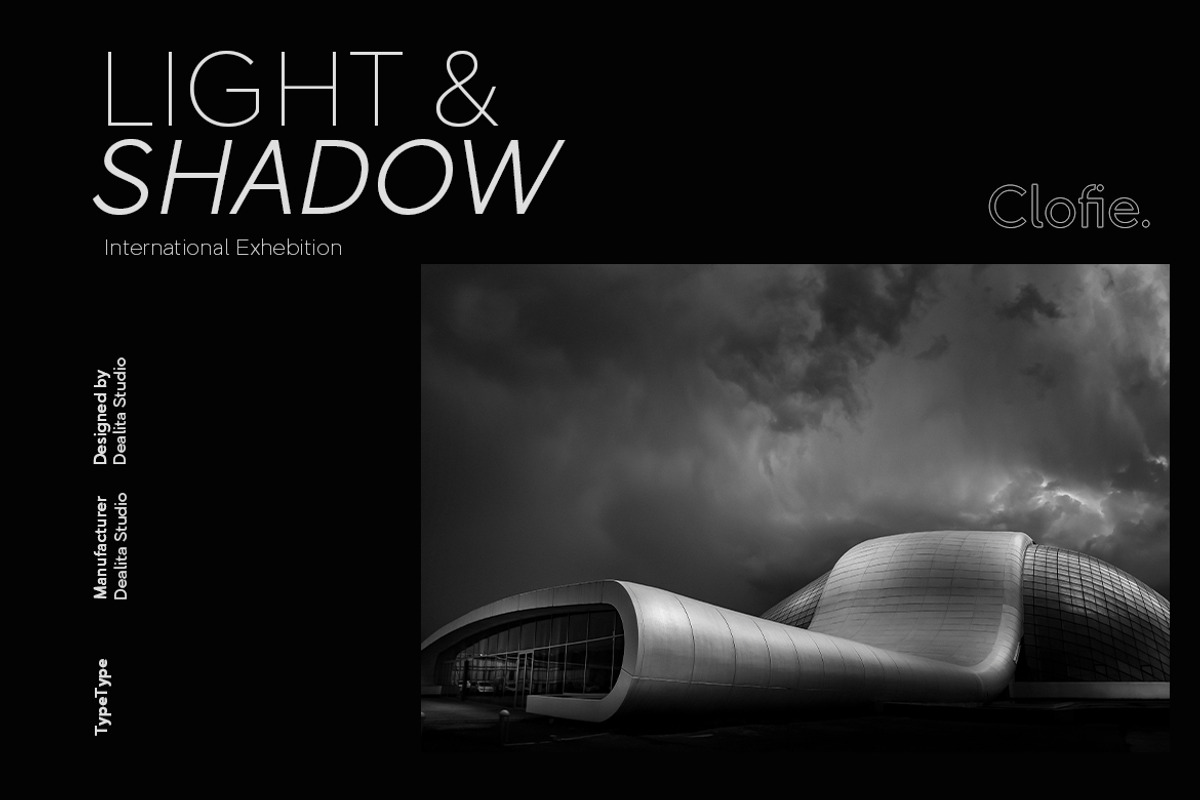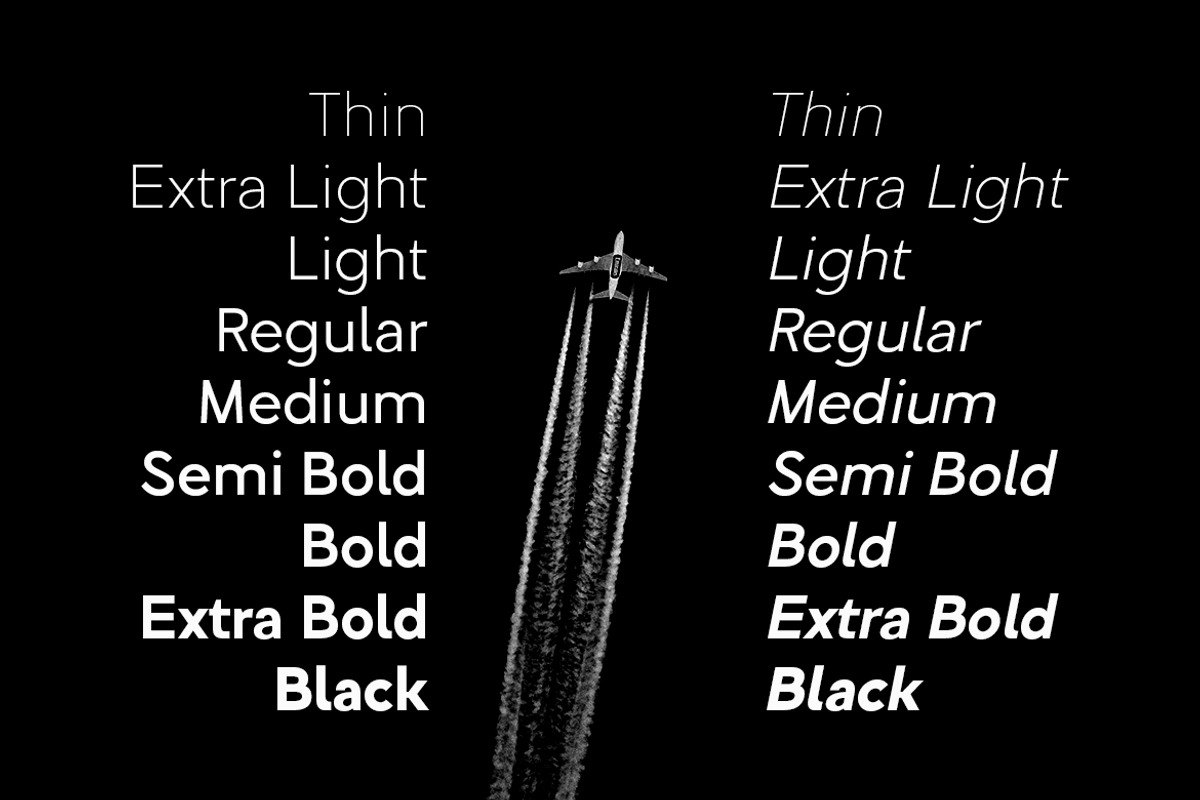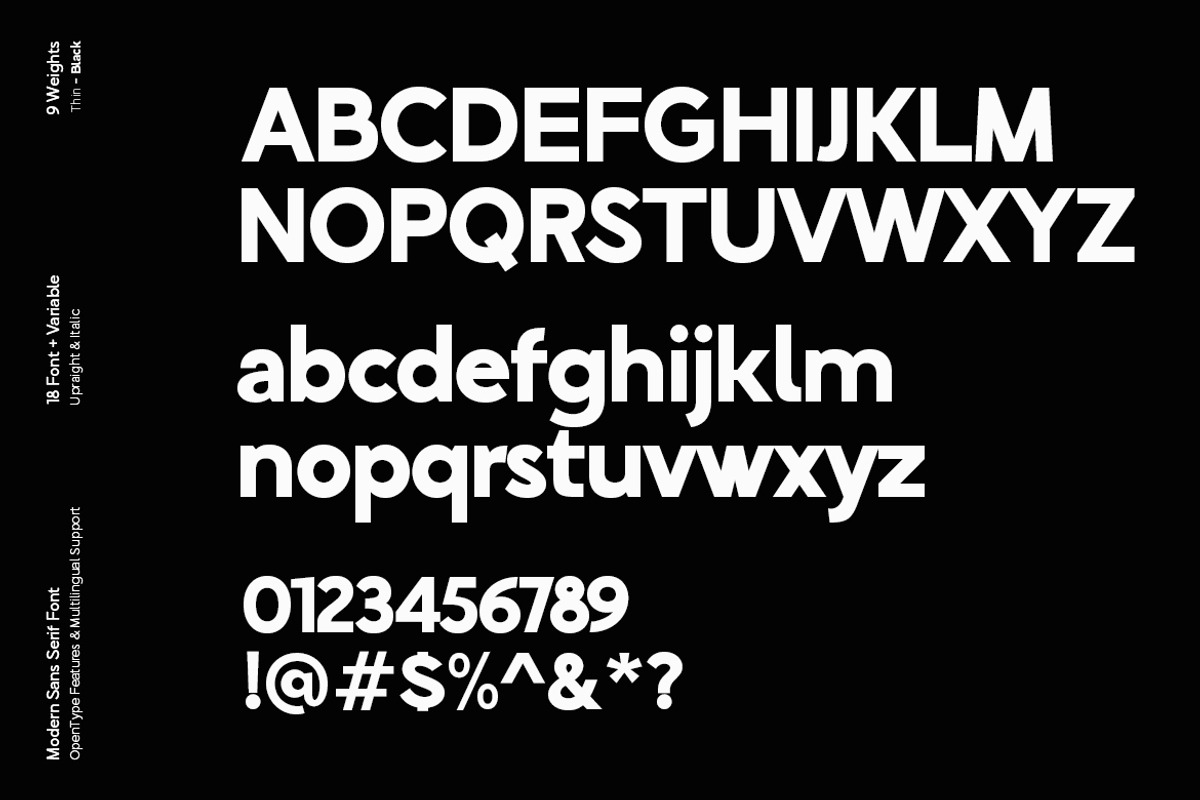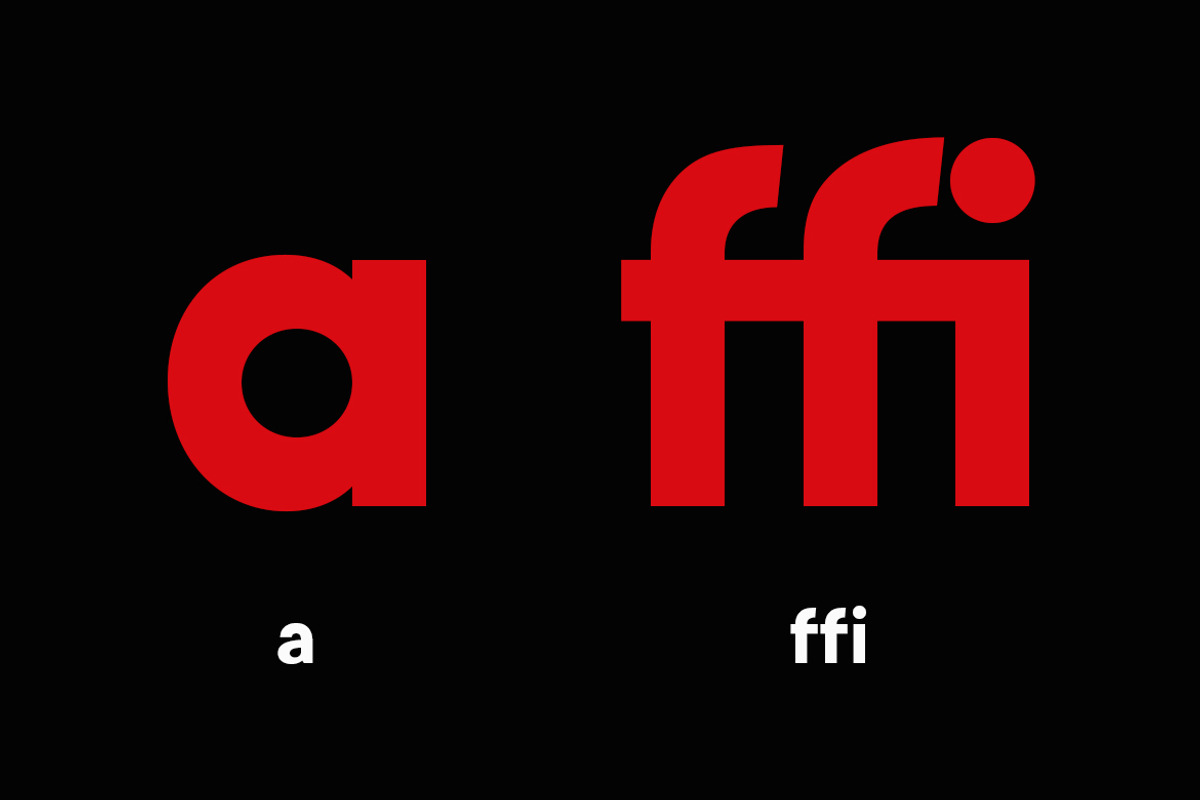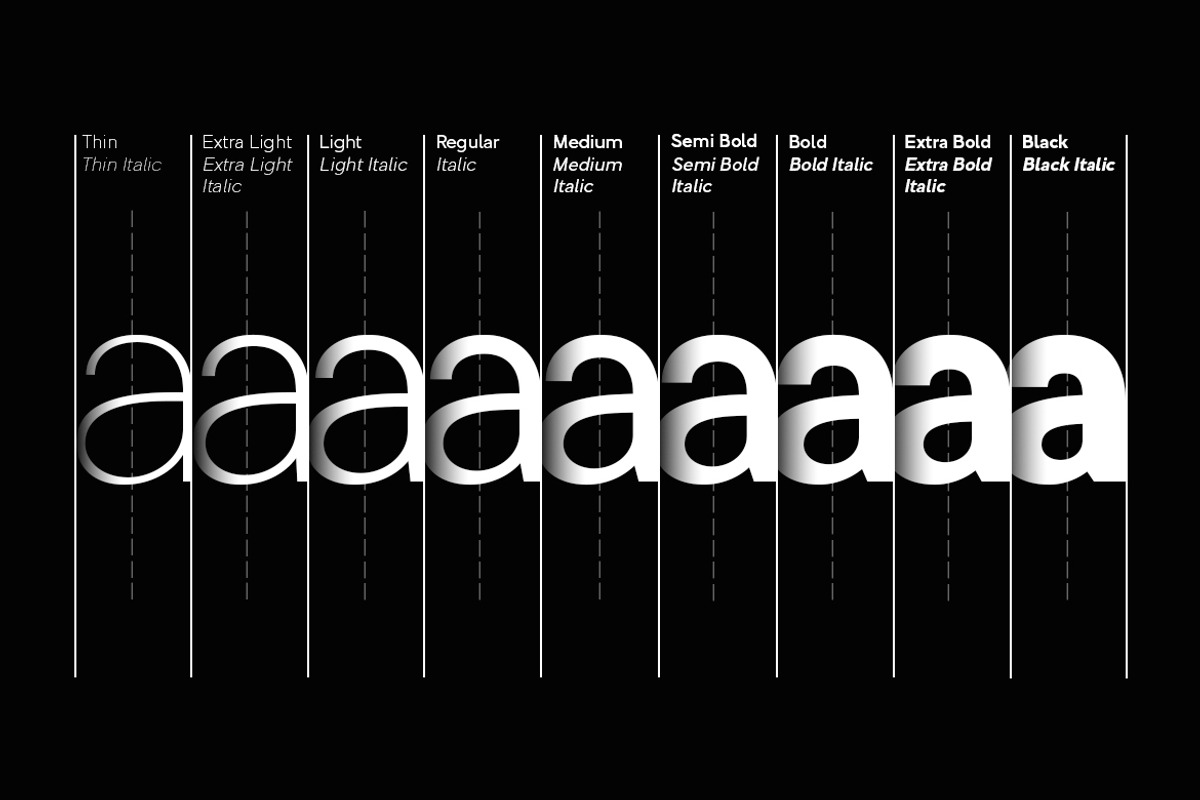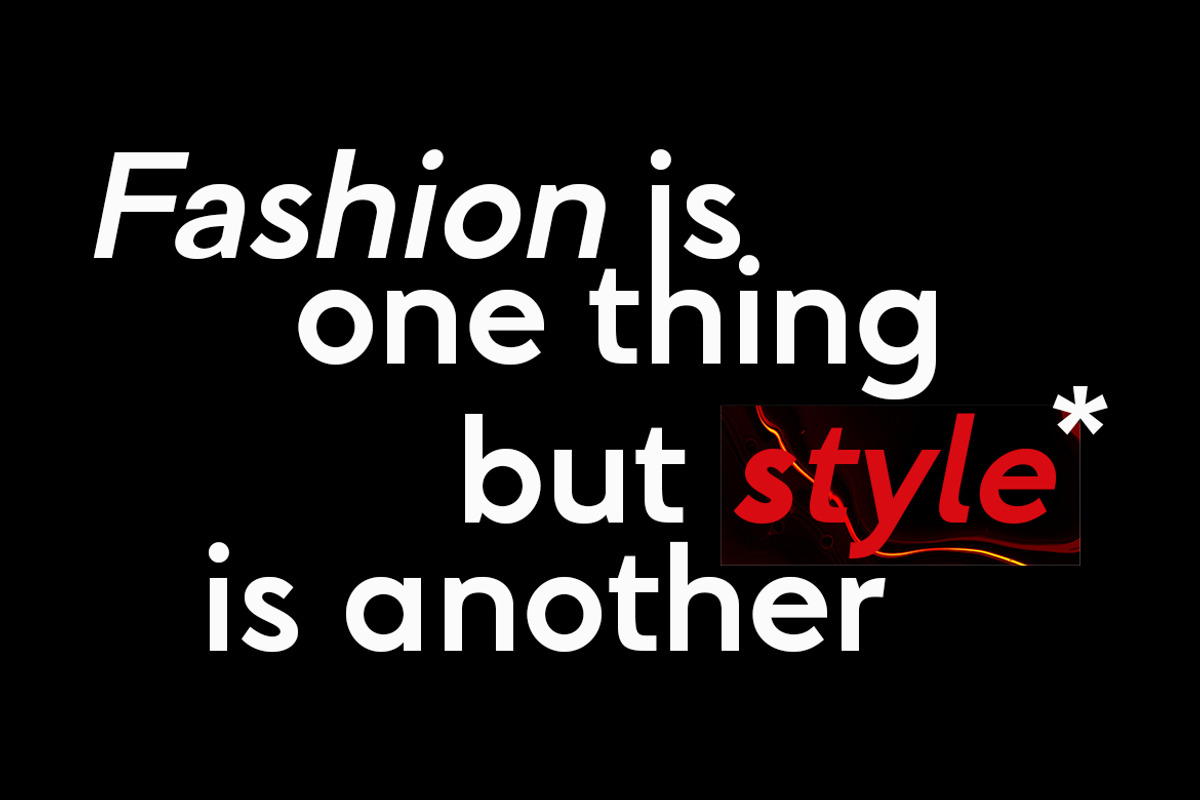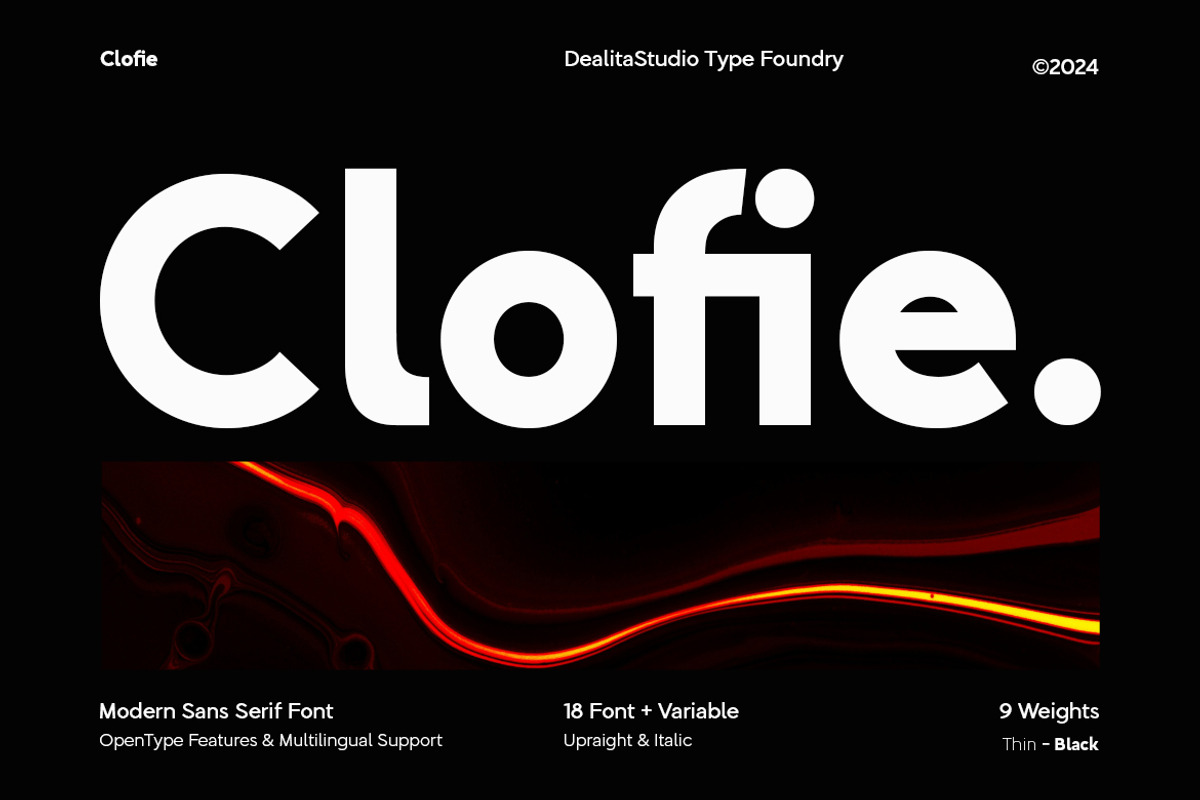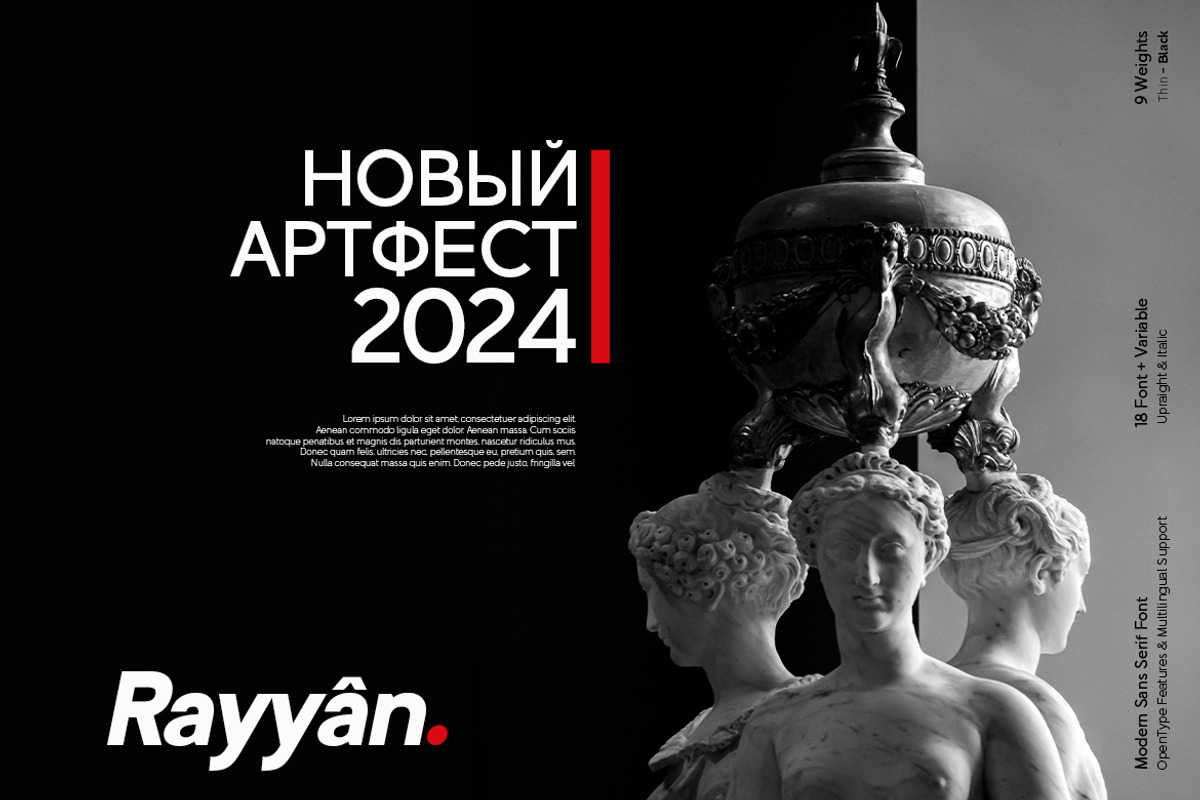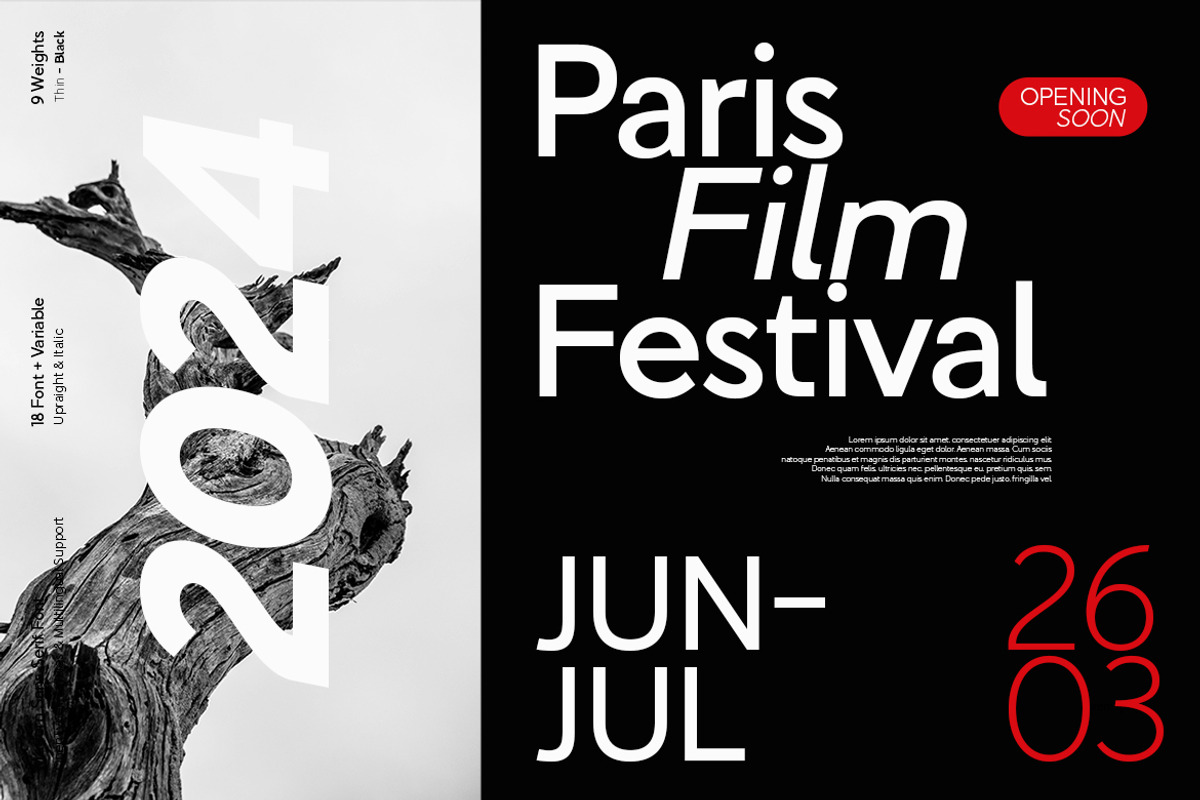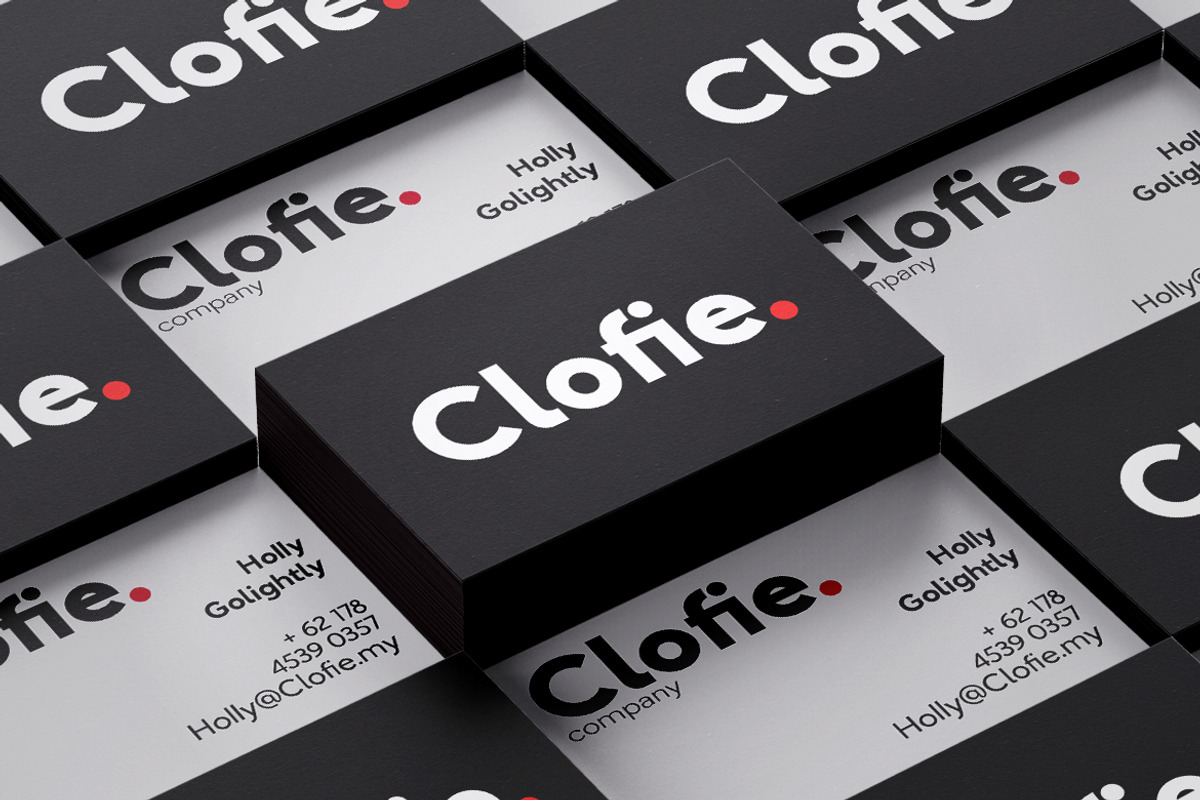
Clofie - Modern Variable Sans
Clofie — Modern Variable Sans
Clofie is a high-precision variable sans serif engineered for minimalist branding and responsive digital identities. Spanning from Thin to Black (including Italics) in a single file, it delivers seamless weight transitions and neutral elegance for tech startups, mobile apps, and modern UI/UX systems.
- Tech Startup Branding & UI/UX Design
- Mobile App Interfaces & Web Design
- Minimalist Logos & Digital Identities
- Responsive Branding Systems
- Variable Technology (Thin to Black + Italics)
- 469 Glyphs | 94 Languages (Global Support)
- 13 Pro Ligatures | PUA Encoded